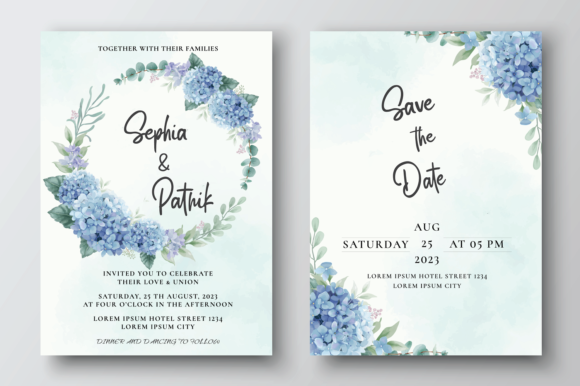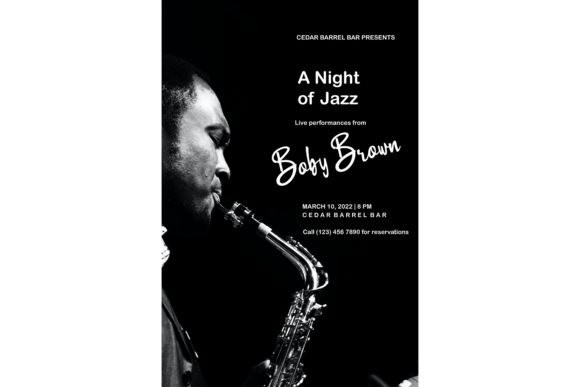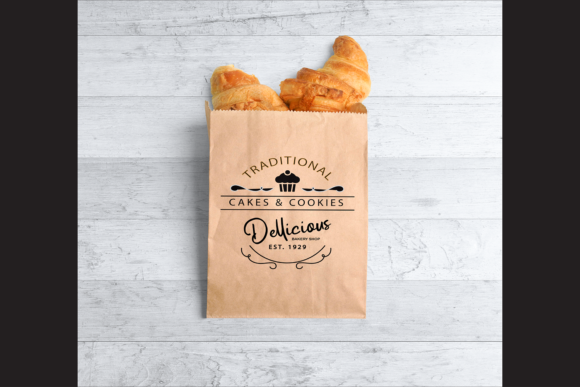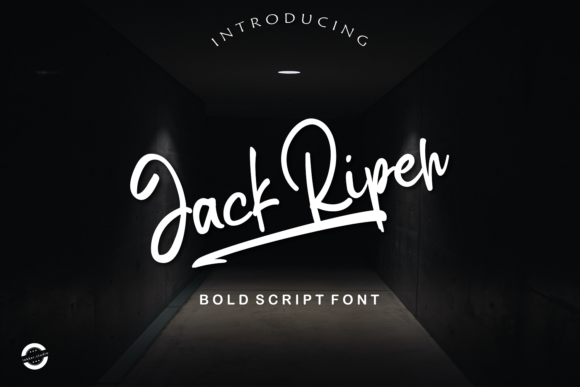
Introduction to Jack Riper Font
Jack Riper is a cool and relaxed handwritten font.
It is perfect for branding projects, logos, wedding invitation, social media posts, advertisements, product designs, label, product packaging, and various other projects that need a customized taste .
Why Choose Jack Riper Font?
Jack Riper Font offers exceptional quality and versatility, making it a valuable addition to your design toolkit. Whether you’re creating for personal projects or commercial use, Jack Riper Font delivers professional results.